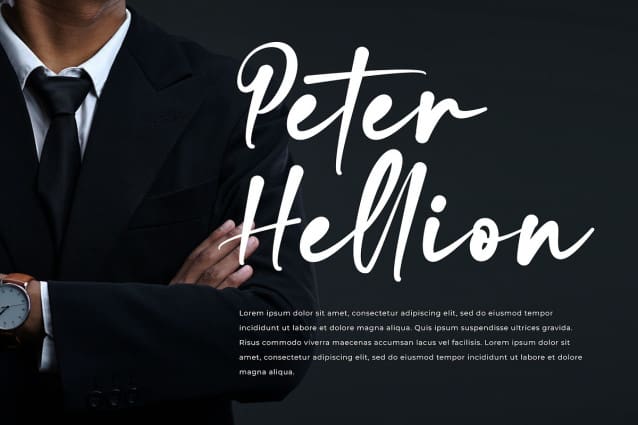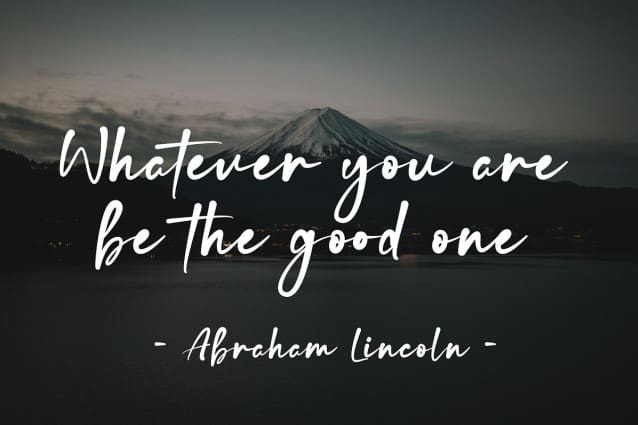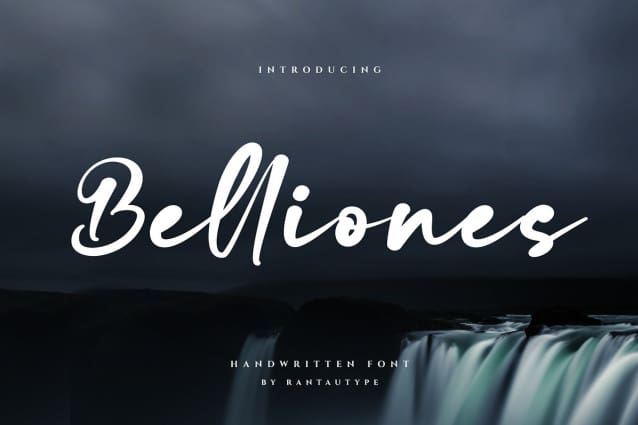
Belliones Script Font
Belliones Script Font. Every single curve has my personality touch. It is great for making logotype, branding, promotional ads, quotes design, packaging, t-shirt design. merchandise, poster, merchandise, social media and much more. Shantay is here to make your work or your business to high level!!!